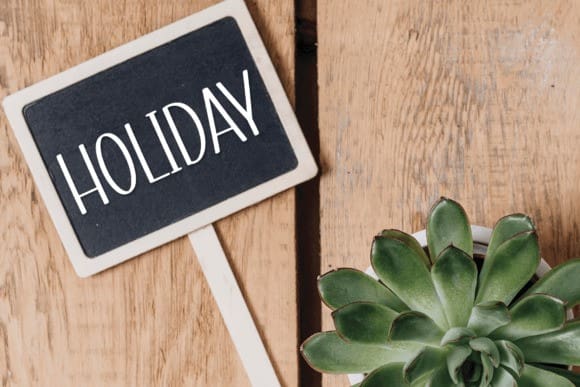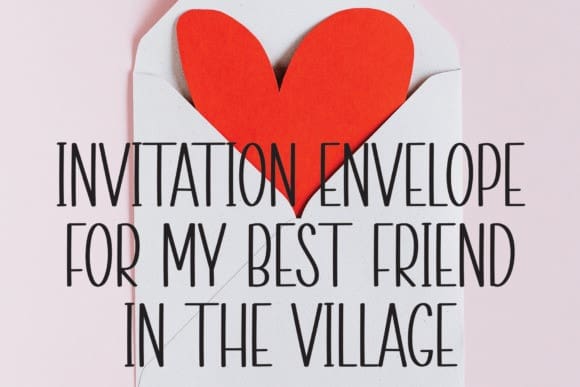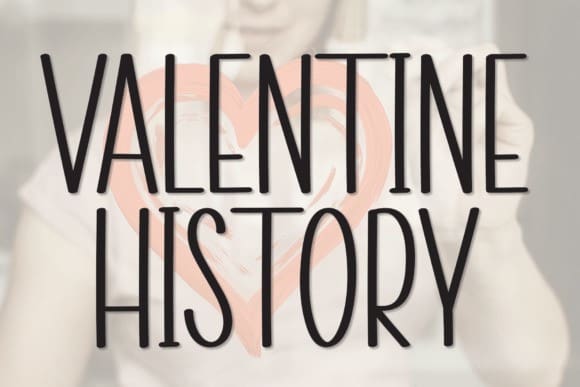
Valentine History Font
Valentine History Font is a casual and neat handwritten font. Trendy and stylish, this font will elevate each of your creations.